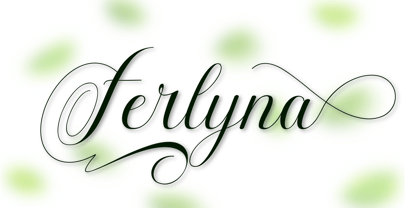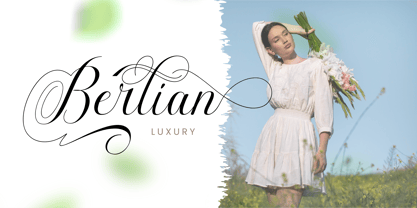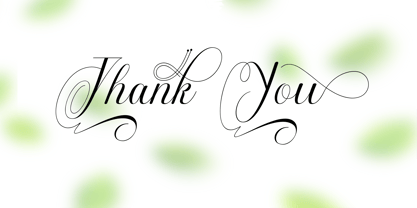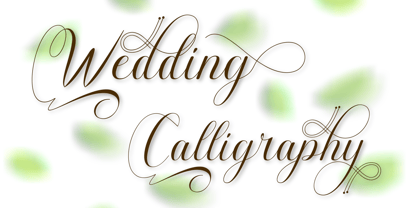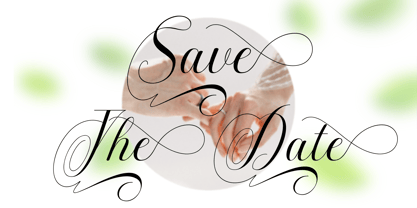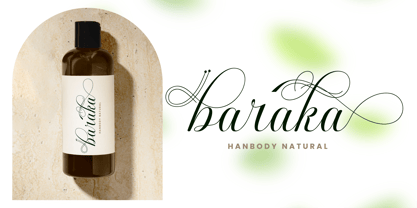
Ferlyna
by Rezastudio
The Ferlyna Font Family was designed by Reza Mukhtazar and published by Rezastudio. Ferlyna contains 1 styles. More about this family
Ferlyna is a graceful and sophisticated script font that blends classic calligraphy with modern elegance. Featuring flowing strokes, refined curves, and luxurious swashes, Terlyna is designed to bring a sense of beauty and charm to any creative project. Its smooth connections and stylish alternates make Terlyna perfect for branding, wedding stationery, logos, packaging, invitations, and high-end editorial design. The font captures a romantic and feminine aesthetic while maintaining excellent readability. Features: Elegant handwritten script style Beautiful beginning and ending swashes Smooth, natural letter connections Uppercase & lowercase characters Numerals & punctuation Multilingual support
Designers: Reza Mukhtazar
Foundry: Rezastudio